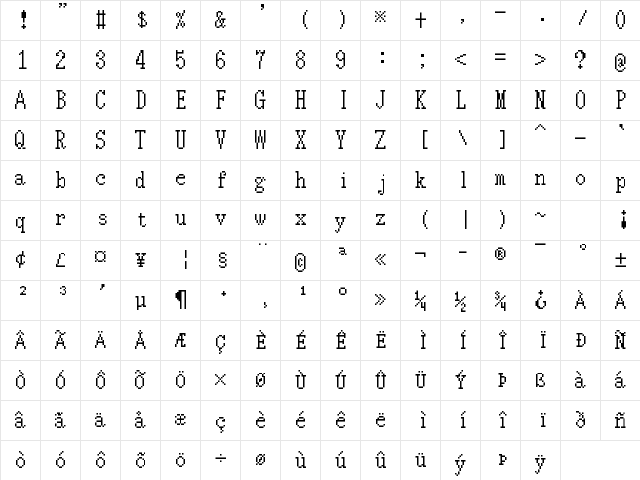
Neutopia (TG16) Regular
Design Context for Neutopia (TG16) Typeface
Neutopia (TG16) is a composed and adaptable typeface that performs quietly and consistently across a wide range of design contexts.